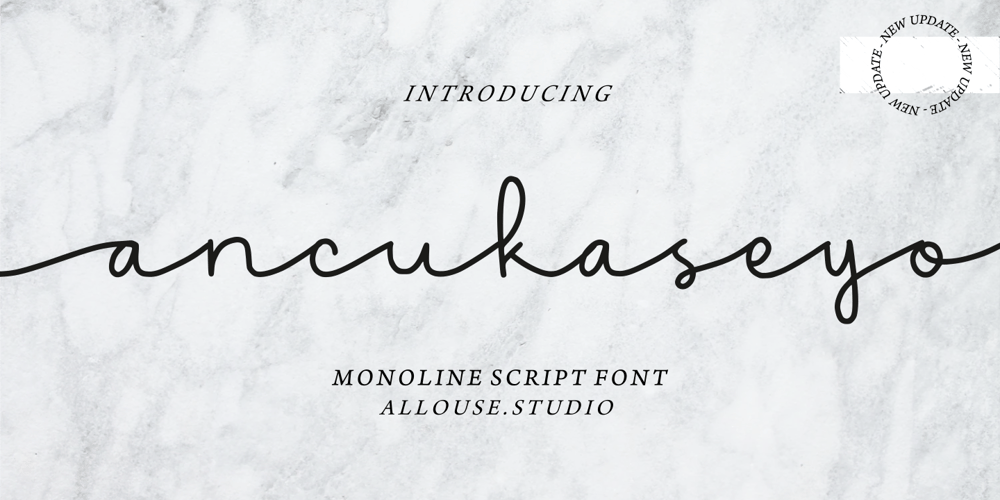
Ancukaseyo Font Family was designed by Fachrizal Yusuf and published by Allouse Studio. Ancukaseyo contains 1 styles and family package options. Proudly Presenting, Ancukaseyo a Monoline Script Font.Ancukaseyo come with Start Alternate Lowercase, Ligatures and Multi-Lingual Support which will fulfill your need with some exploration.We highly recommend using a program that supports OpenType features and Glyphs panels like many of Adobe apps and Corel Draw, so you can see and access all Glyph variations.Ancukaseyo is perfect for any tittle, logo, product packaging, branding project, megazine, social media, wedding, or just used to express words above the background.Enjoy the font, feel free to comment or feedback, send me PM or email. Thank You!